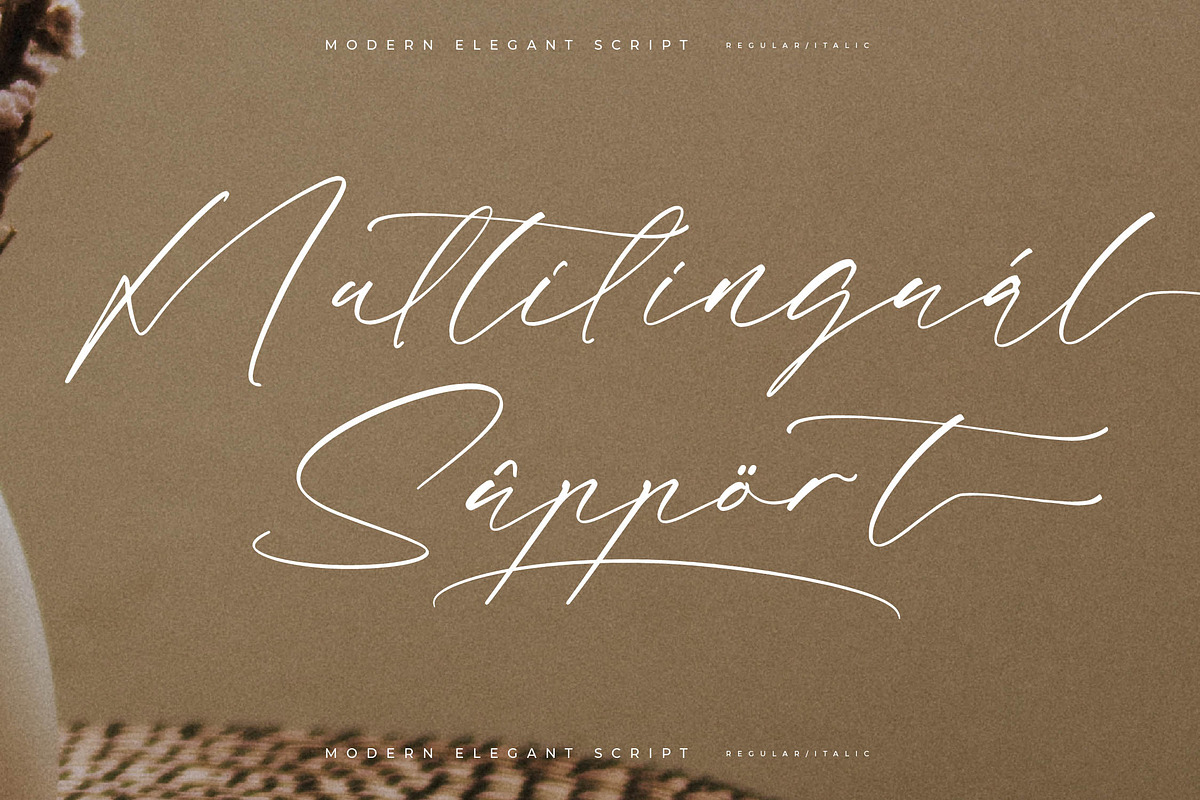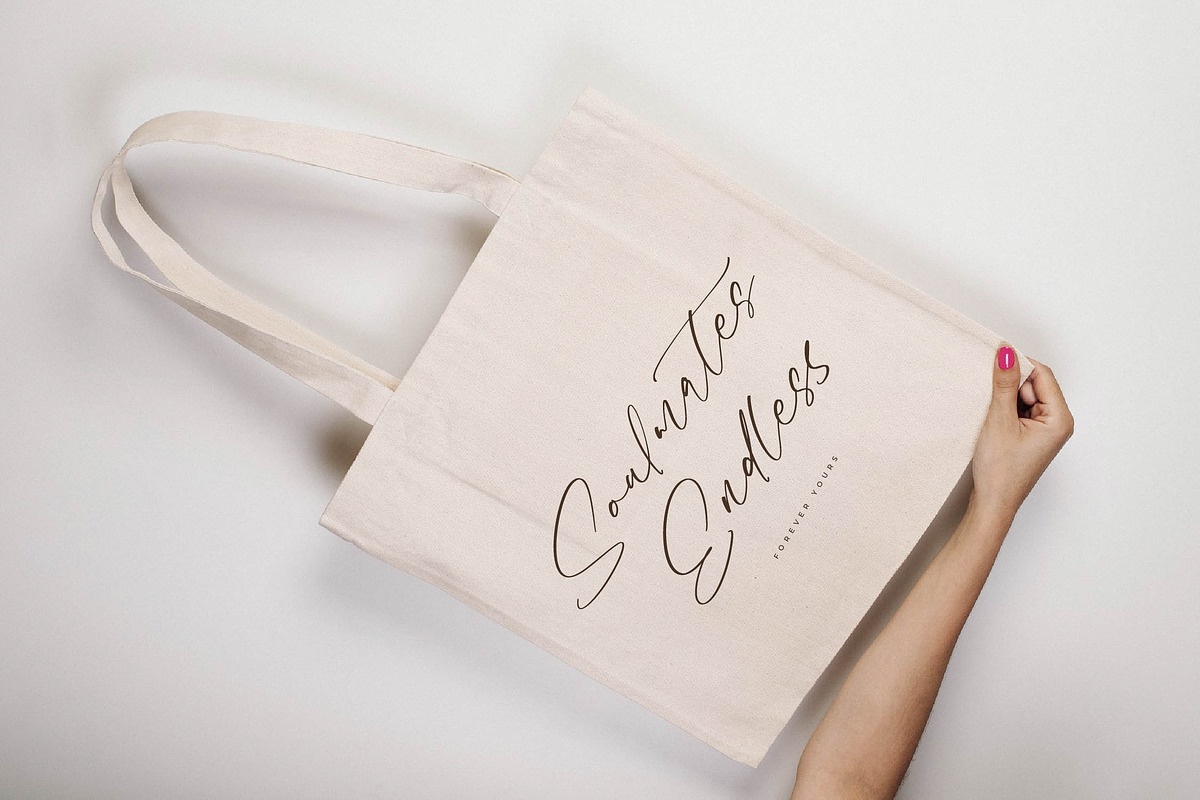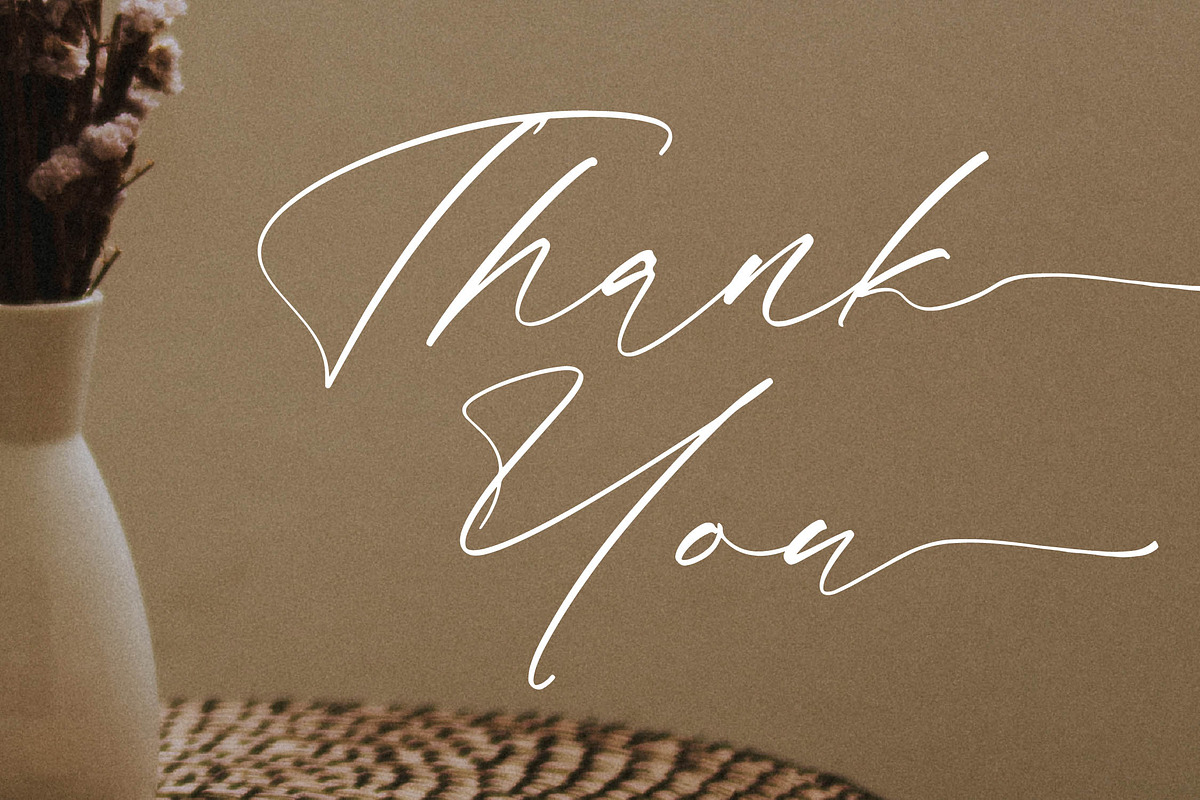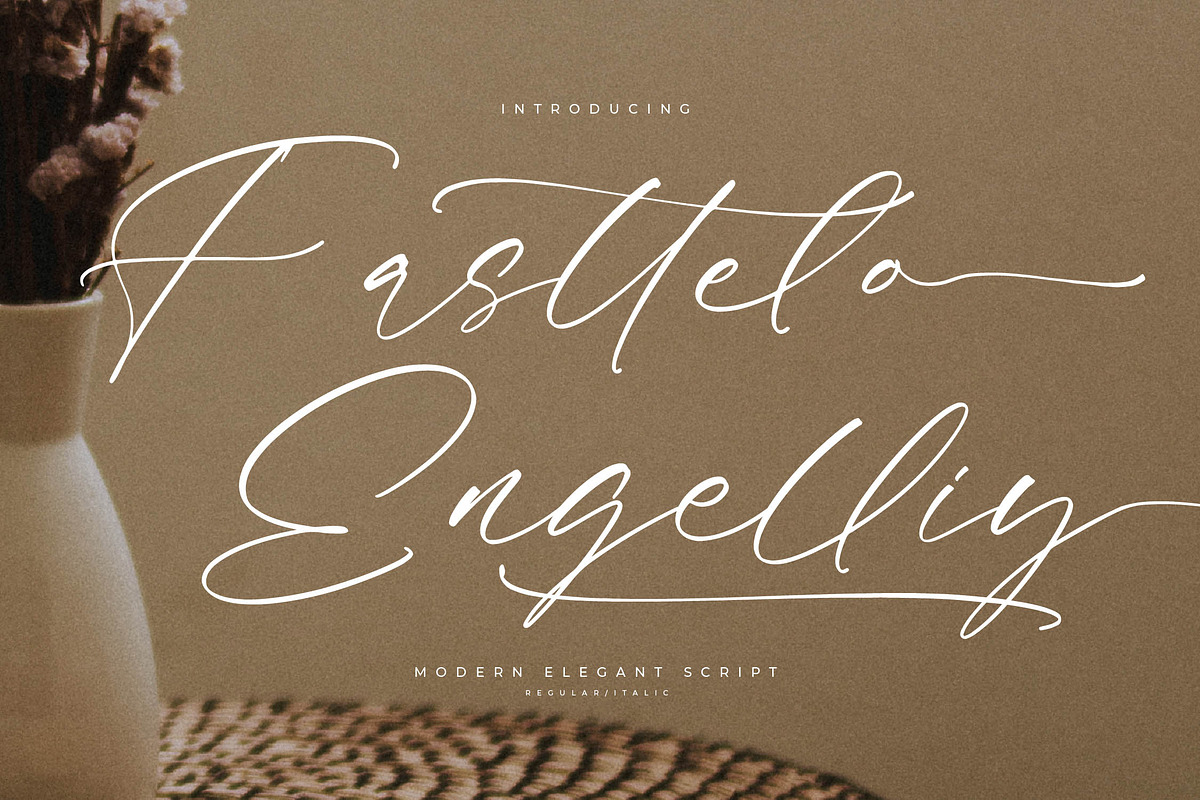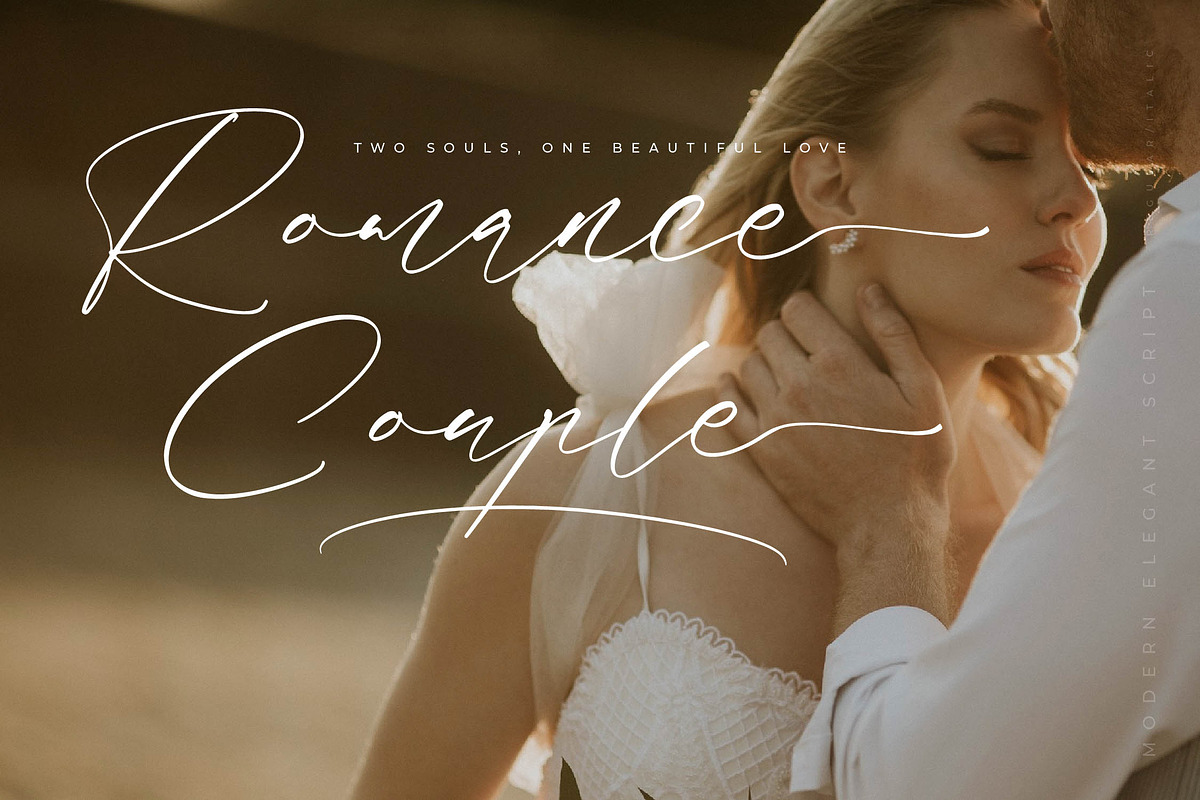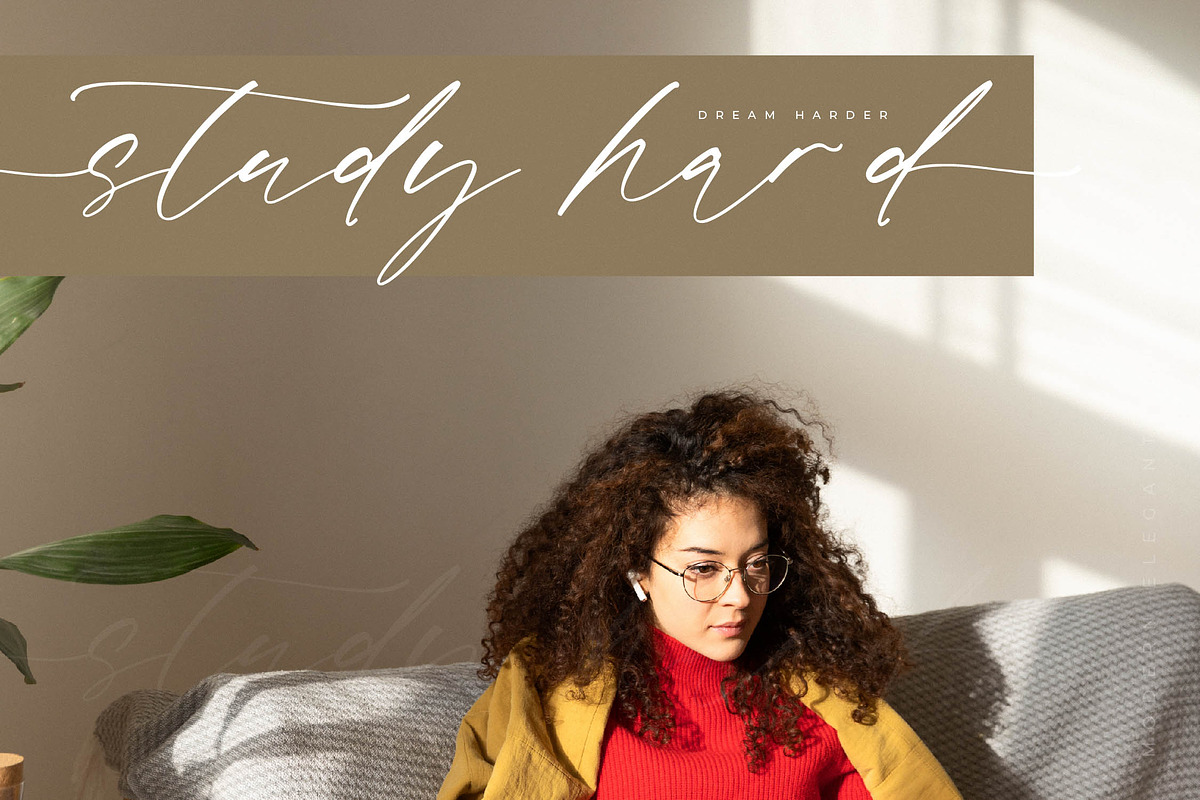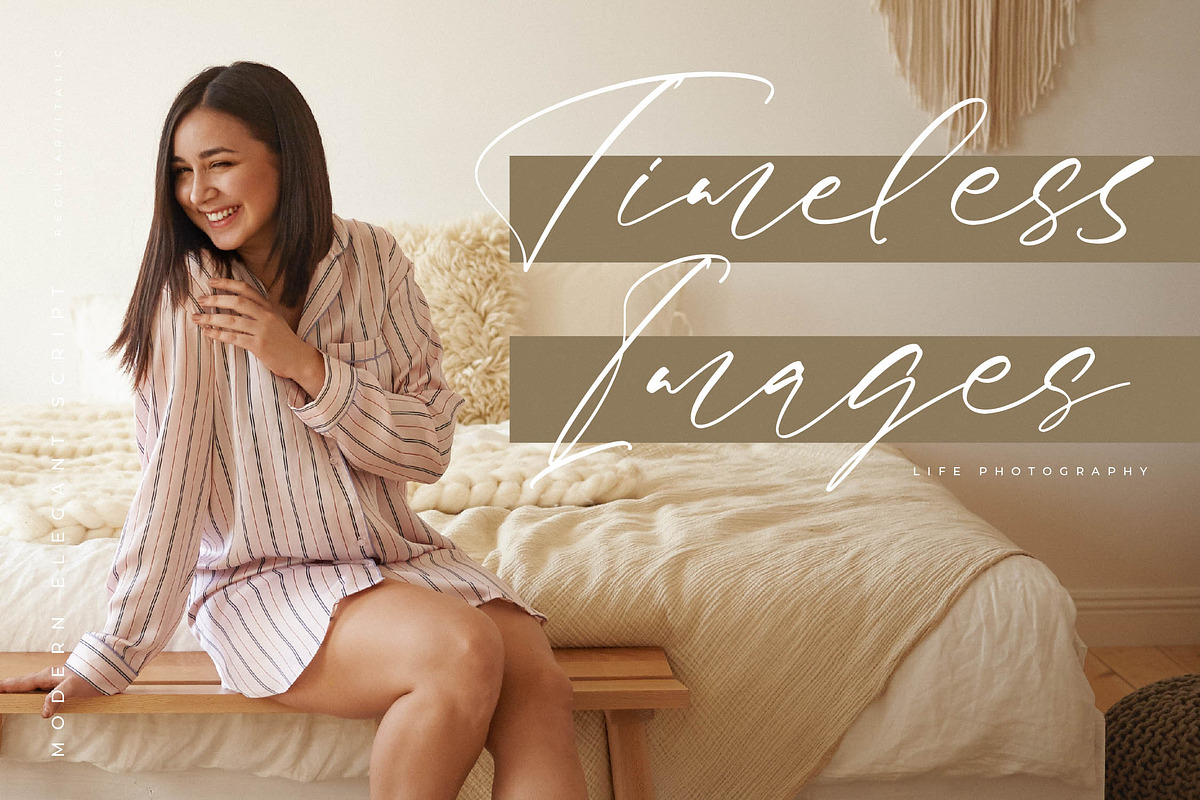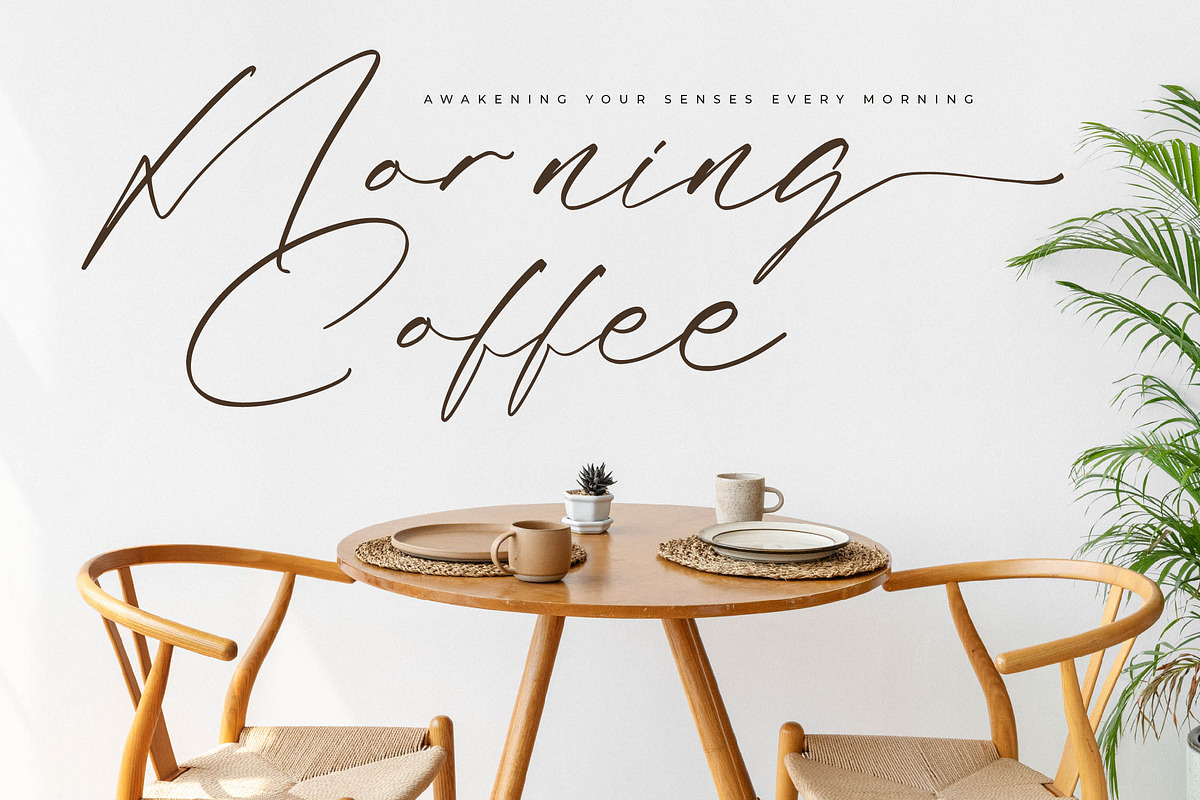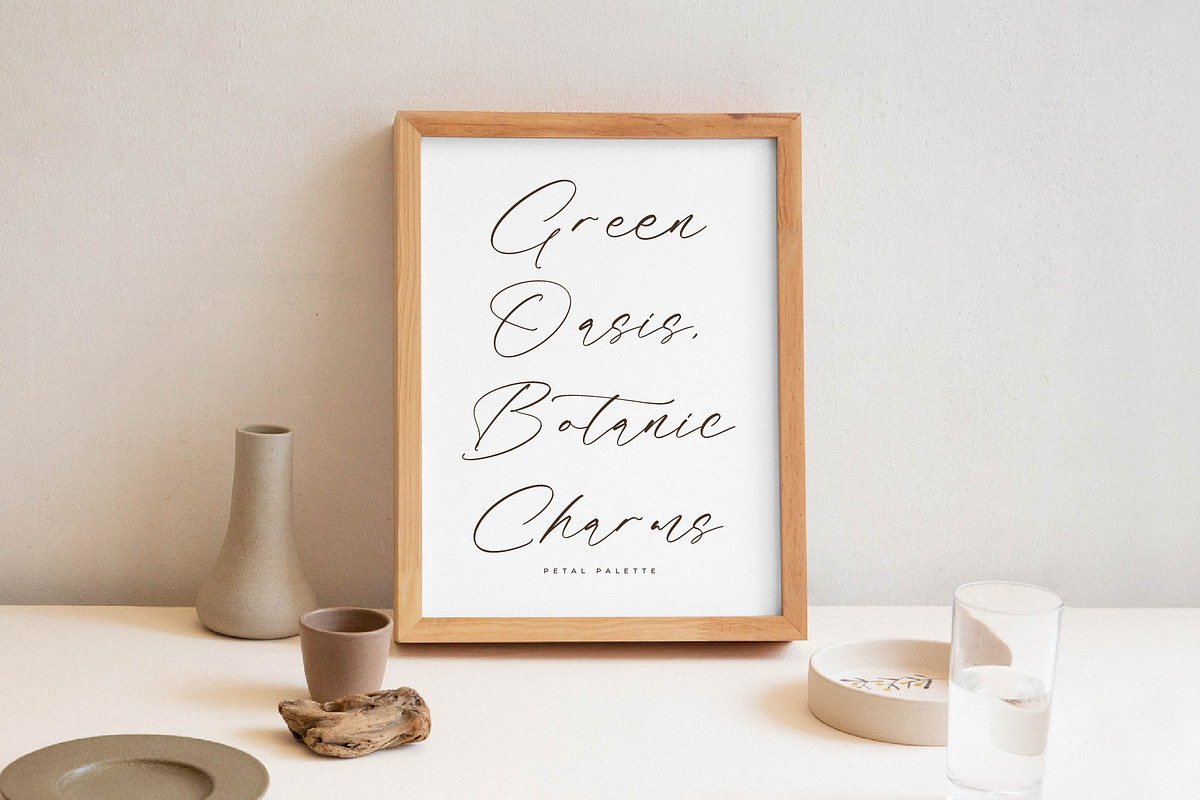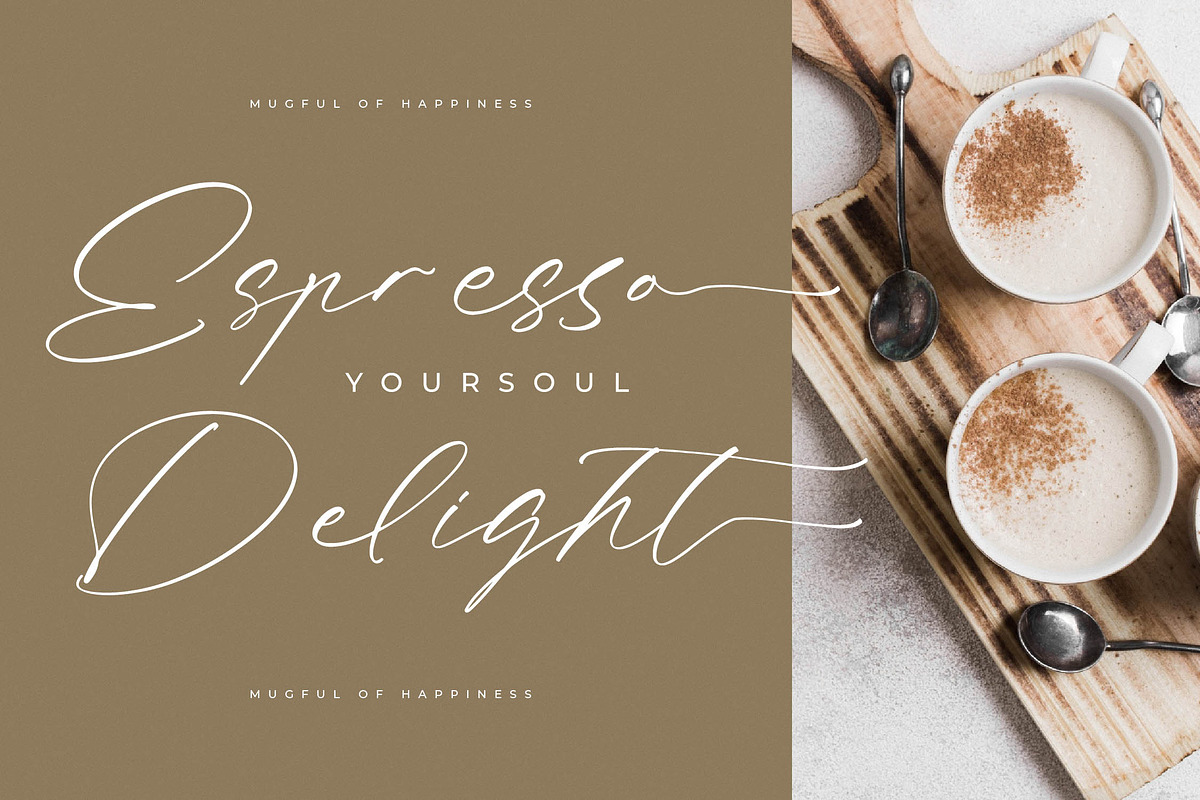
Fasttelo Engelliy Elegant Script
Fasttelo Engelliy – Modern Elegant Script , from Letterena, is a Luxury Script font, suitable for any projects such as: logos, branding projects, homeware designs, product packaging, mugs, quotes, posters, shopping bags, t-shirts, book covers, name card, invitation cards, greeting cards, label, photography, watermark, special events, and all your other luxury and beautiful projects that need a Luxury serif taste.